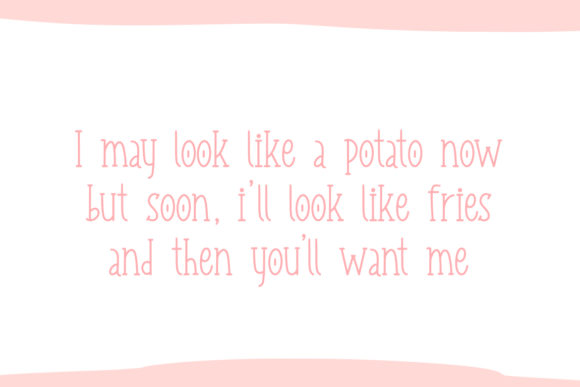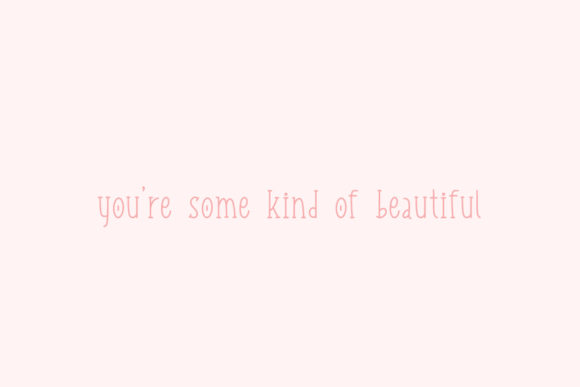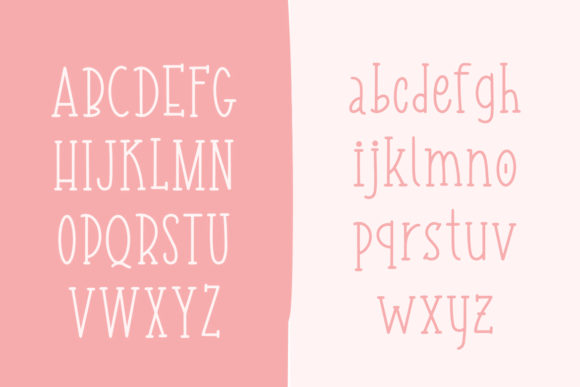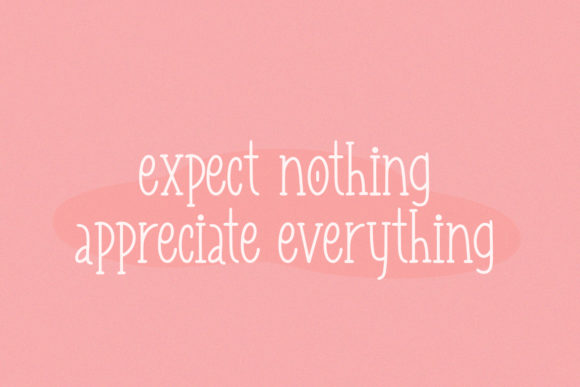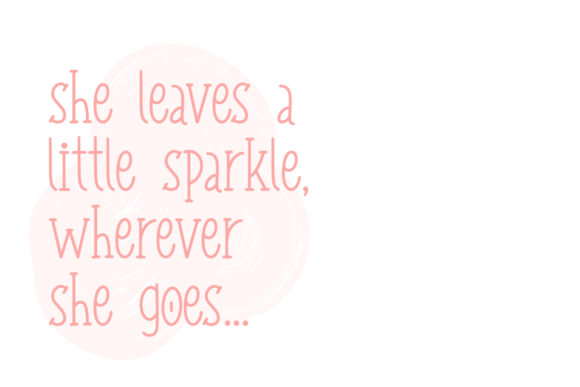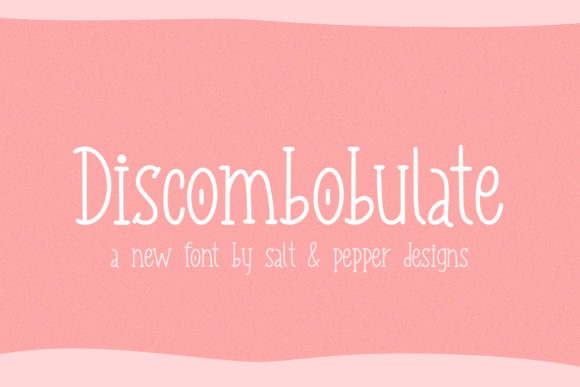
Discover the Delightful Discombobulate Font: A Quirky yet Versatile Lettered Display Font
Are you on the hunt for a font that adds a touch of whimsy to your design projects? Look no further than the Discombobulate font! This simple and neat lettered display font is making waves in the design community, and for good reason. A little bit quirky, Discombobulate looks incredibly adept on a wide variety of contexts, making it a versatile addition to any designer’s toolkit.
What is Discombobulate Font?
Discombobulate is a lettered display font that boasts a unique charm. Its simplicity and neatness make it an excellent choice for designers who want to add a touch of personality to their work without going overboard. The font’s quirky undertones give it a distinctive edge, setting it apart from more traditional fonts.
Key Features of Discombobulate Font
- Simple and Neat: Discombobulate’s clean lines and simple letterforms make it easy to read and versatile for various design applications.
- Quirky Undertones: The font’s quirky personality shines through in its unique letterforms and subtle irregularities.
- Lettered Display Font: Discombobulate is designed specifically for display purposes, making it perfect for headlines, titles, and other attention-grabbing elements.
- Wide Range of Contexts: This font’s adaptability makes it suitable for a wide range of design projects, from branding and advertising to packaging and digital media.
Uses for Discombobulate Font
So, what can you use Discombobulate font for? The possibilities are endless! Here are a few ideas to get you started:
- Branding and Logo Design: Add a touch of whimsy to your brand identity with Discombobulate font. Its uniqueness makes it an excellent choice for logos, business cards, and other brand materials.
- Headlines and Titles: Use Discombobulate font to create eye-catching headlines and titles for your blog posts, articles, and social media content.
- Packaging Design: Discombobulate font is perfect for product packaging, adding a playful touch to labels, tags, and other packaging materials.
- Digital Media: Use Discombobulate font in your digital designs, such as website headers, social media graphics, and email newsletters.
Why Designers and Crafters Love Discombobulate Font
Designers and crafters are raving about Discombobulate font, and it’s easy to see why. Here are just a few reasons why this font has become a favorite:
- Unique Personality: Discombobulate font has a distinctive personality that sets it apart from more traditional fonts.
- Versatility: This font’s adaptability makes it suitable for a wide range of design projects and applications.
- Easy to Read: Despite its quirky undertones, Discombobulate font remains easy to read, making it perfect for display purposes.
- Time-Saving: With Discombobulate font, you can add a touch of personality to your designs without spending hours searching for the perfect font.
Tips for Using Discombobulate Font
To get the most out of Discombobulate font, here are a few tips to keep in mind:
- Experiment with Sizes: Discombobulate font looks great in a variety of sizes, from small captions to large headlines.
- Play with Colors: This font’s simplicity makes it easy to pair with a wide range of colors and textures.
- Mix and Match: Combine Discombobulate font with other fonts to create a unique and visually appealing design.
- Keep it Simple: Don’t be afraid to keep things simple with Discombobulate font. Its clean lines and simple letterforms make it a great choice for minimalist designs.
In conclusion, Discombobulate font is a quirky yet versatile lettered display font that’s perfect for designers and crafters looking to add a touch of personality to their work. With its simple and neat design, unique undertones, and wide range of applications, Discombobulate font is sure to become a staple in your design toolkit.